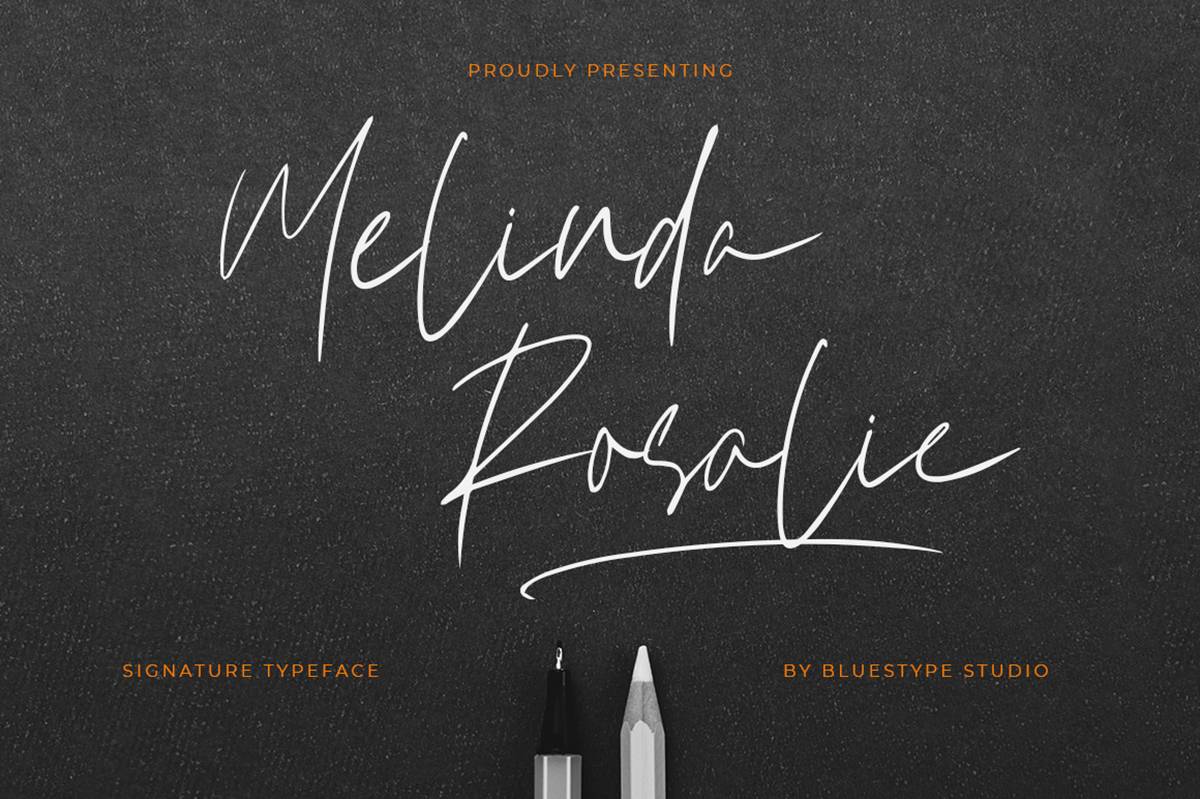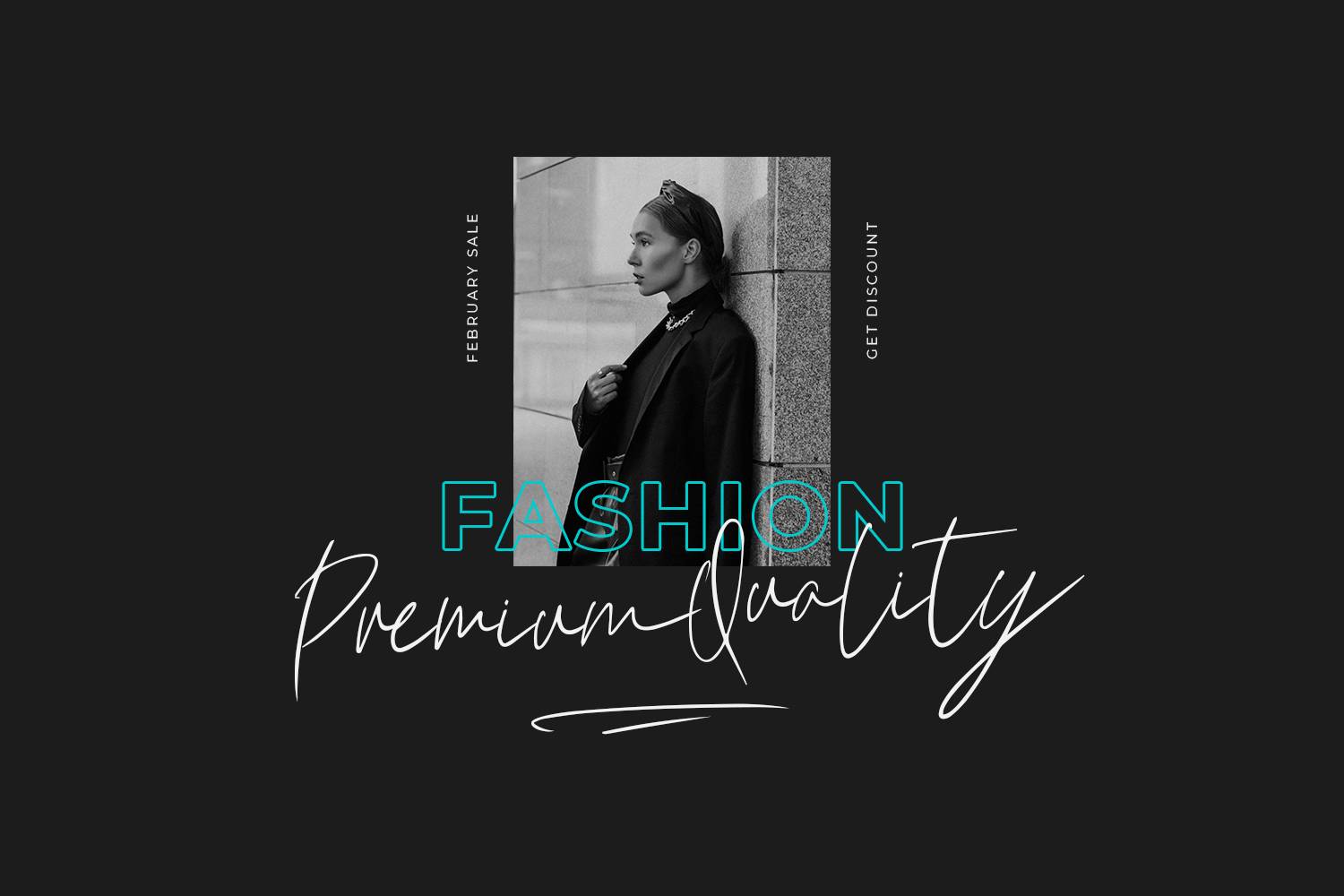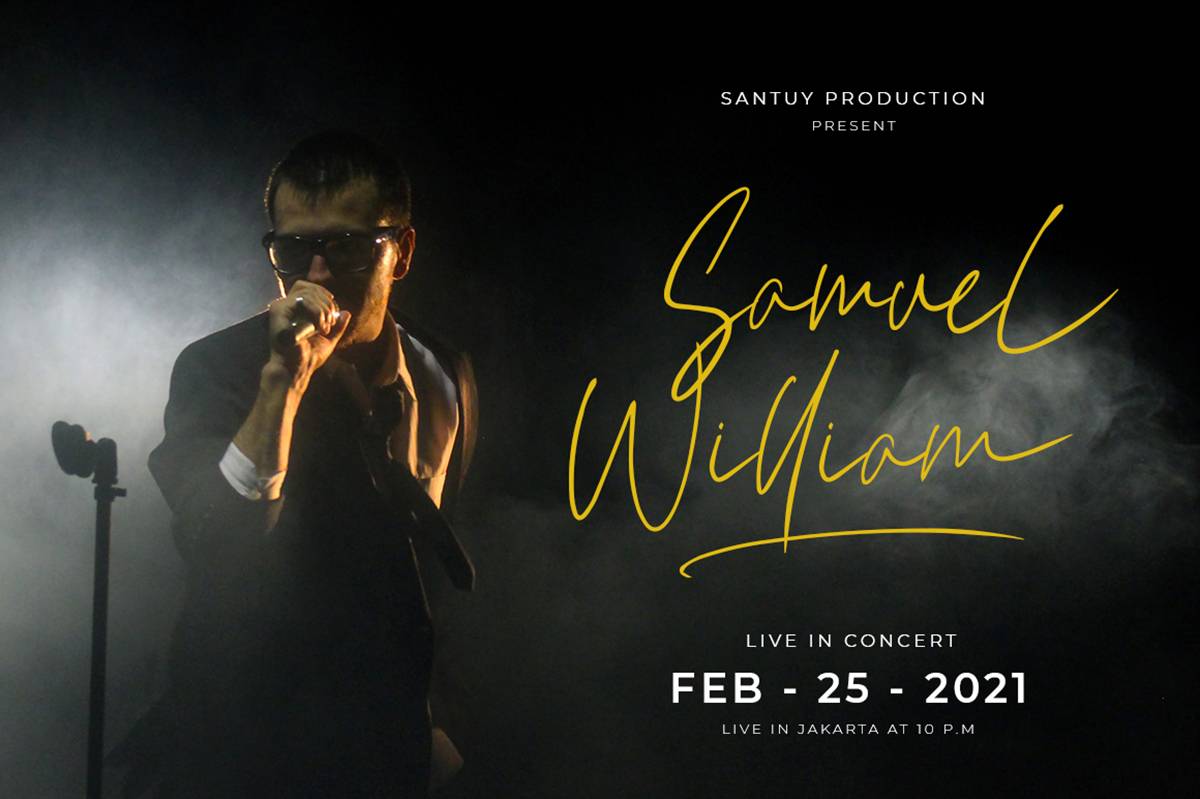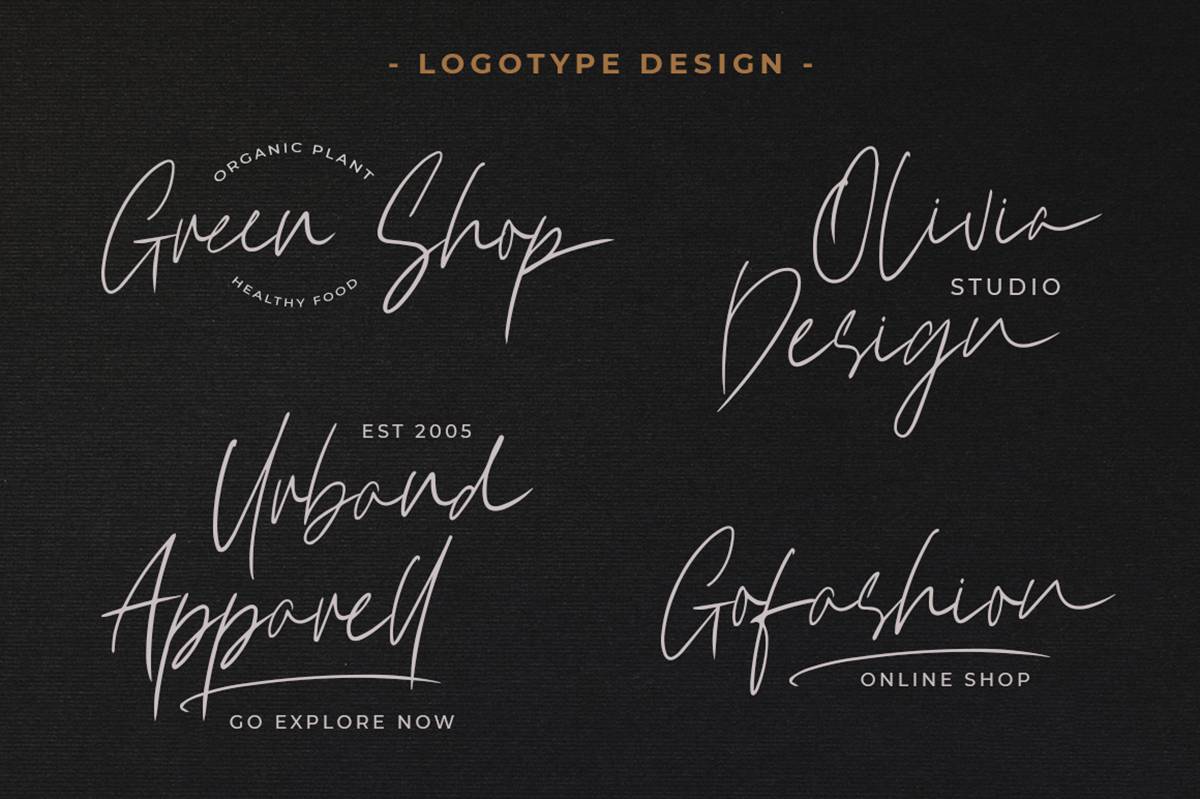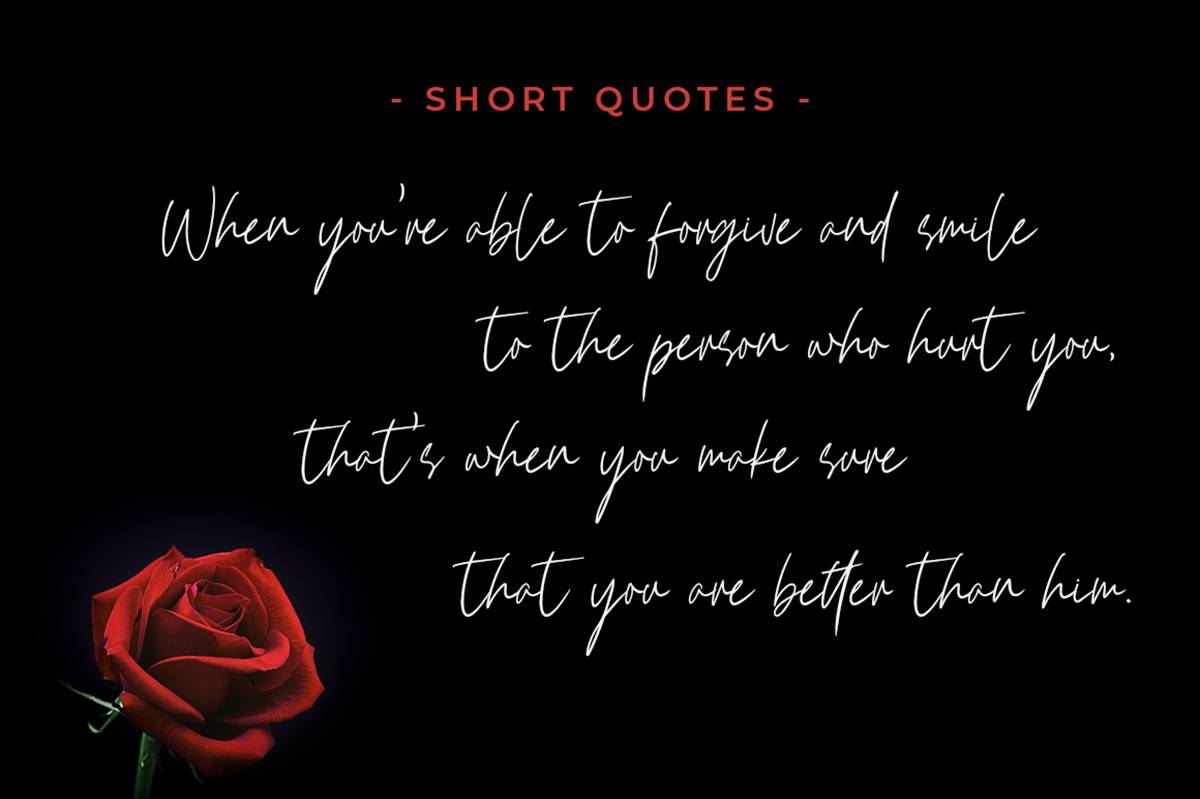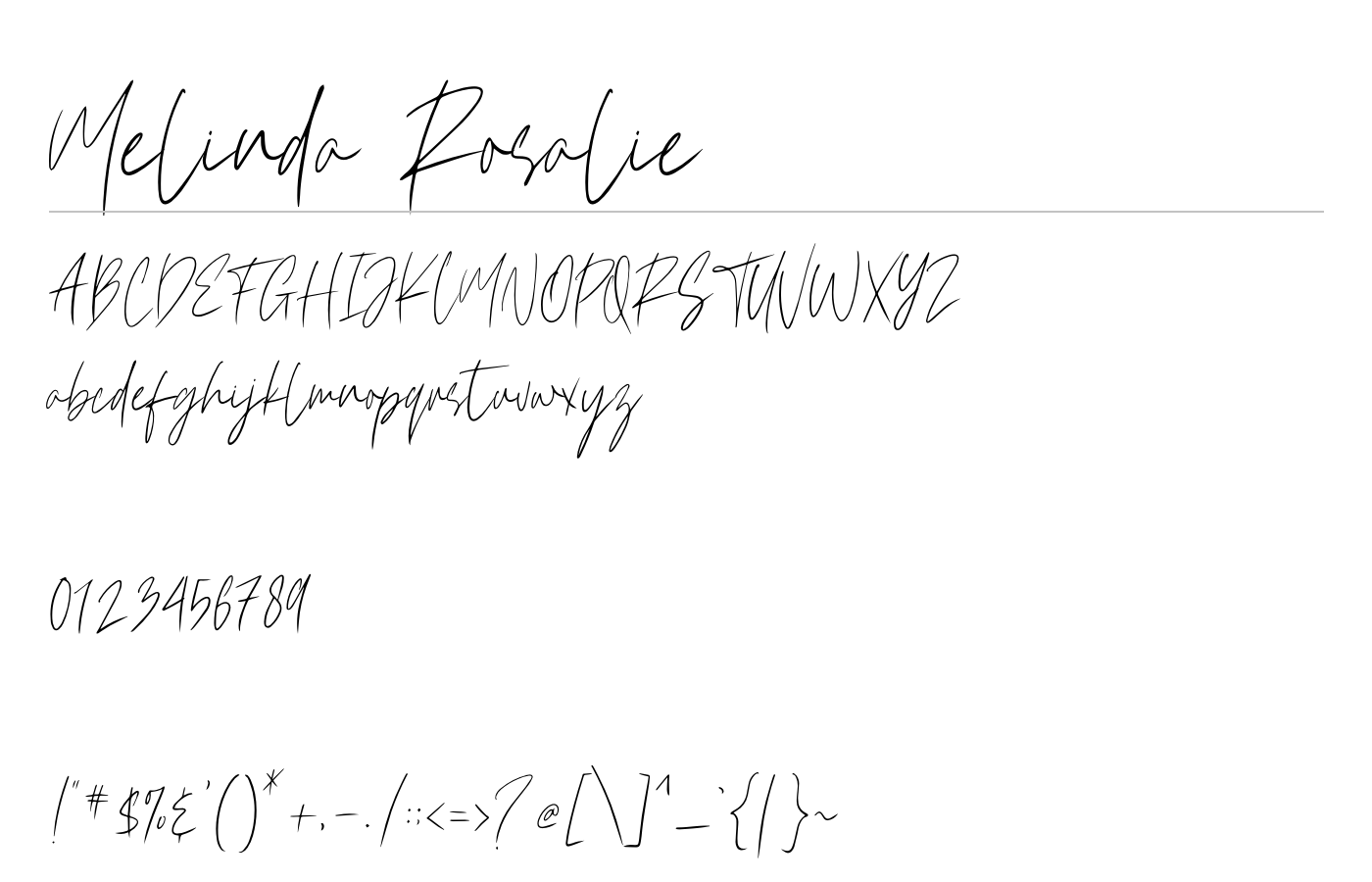
Melinda Rosalie is a delicate and expressive handwritten script font featuring slender, flowing strokes that create a sense of elegance and personal touch. Its tall, narrow letterforms and light weight make it perfect for designs that seek a refined, intimate, and artistic feel, such as wedding invitations, branding, and elegant editorial accents. This font works best in large sizes where its subtle details can shine, adding a sophisticated yet approachable personality to creative projects.
Melinda Rosalie Font
About Melinda Rosalie Font
| Font family | Melinda Rosalie Font |